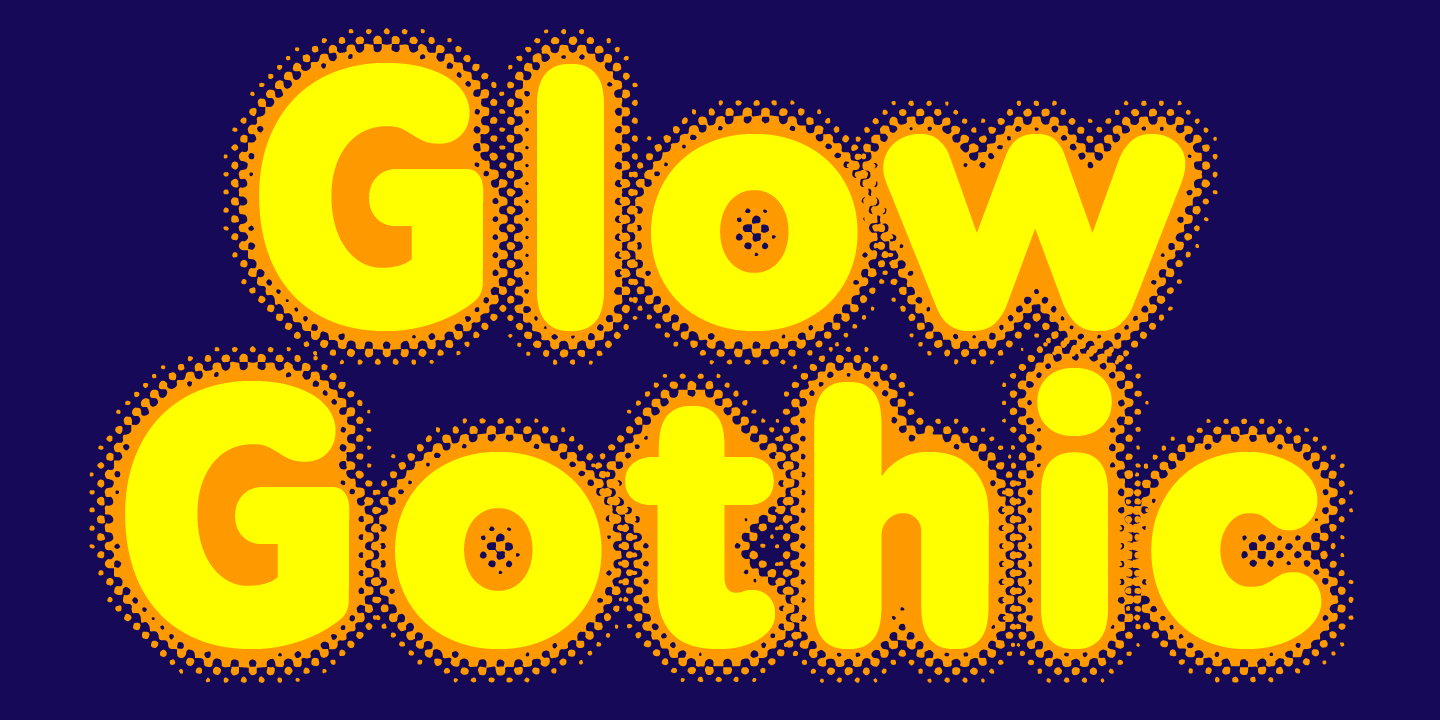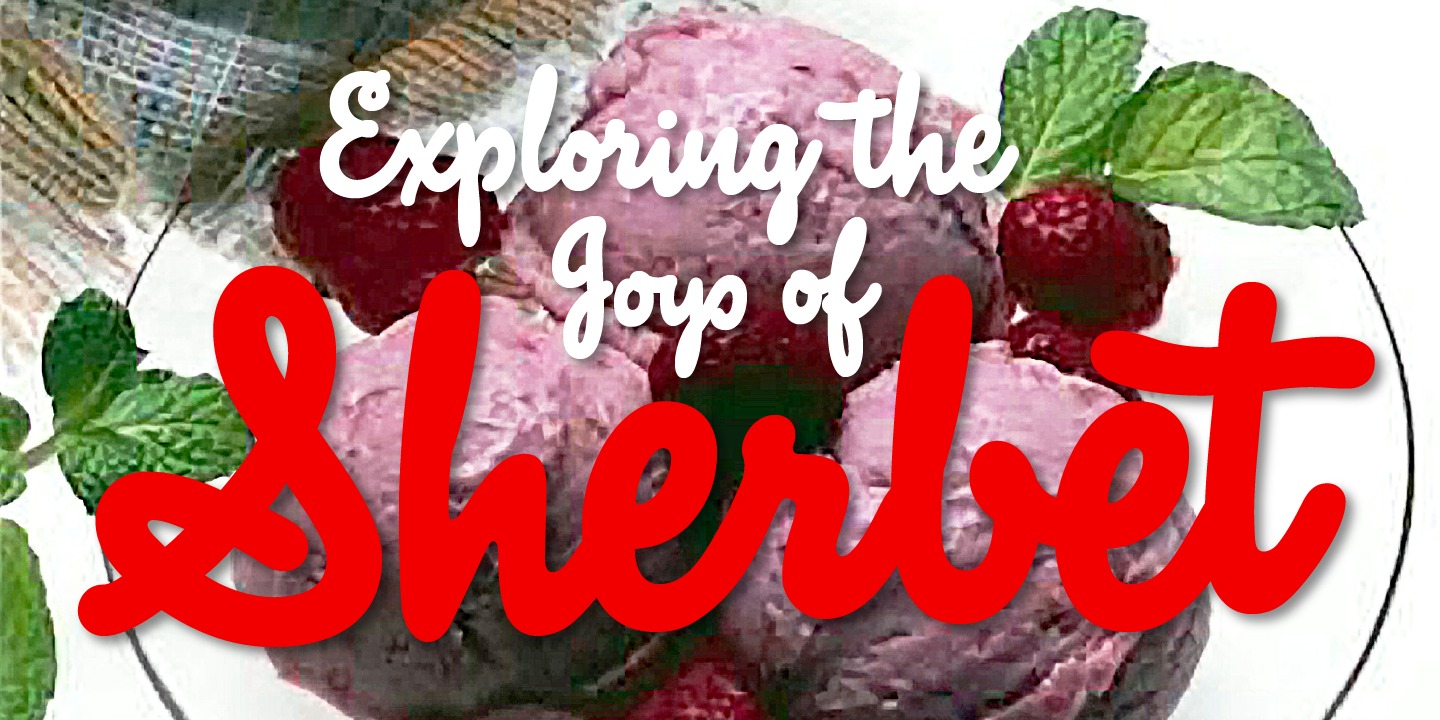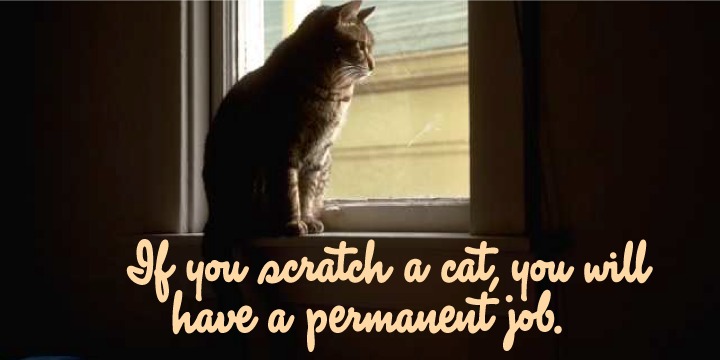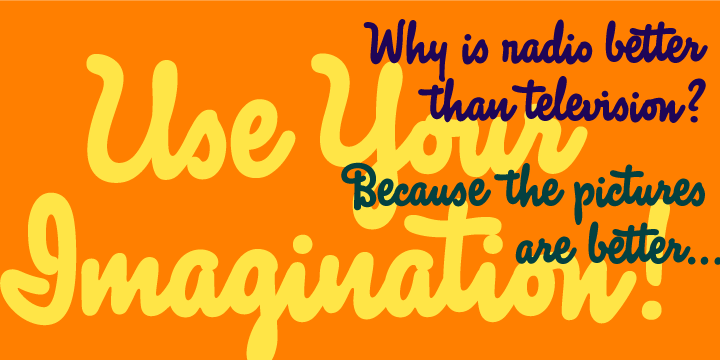
Bomparte’s Fonts, is a modest type foundry that was launched in 2006 by type designer John Bomparte, at the urging and encouragement of his friend and colleague Bob Alonso (BA Graphics).
John’s love and passion for letters began while in art college, and in the middle of studies in typography. His eyes were suddenly awakened to the rich diversity of various lettering styles. He would sometimes stare for hours on end, at the different typestyles shown in such dry-transfer lettering catalogs as Letraset® and Zipatone®. To John, this was “eye candy”!
It wasn’t long after that he discovered he’d been blessed with the ability to remember and identify the many typefaces to be found everywhere, from supermarket aisles to bookstore shelves.
Later on, John’s experience in type design blossomed at the legendary Photo-Lettering, Inc. where he was assistant to renowned type designer, Ed Benguiat. Working in such an environment also offered him the unique opportunity to be surrounded by such other great type designers as Tony Stan, Vic Caruso, Vincent Pacella.
However, with the emergence of the new computer technologies, the once photogenic letter inevitably had to go digital. So John embraced this new reality, as much of what used to be done laboriously by hand, could now be done in a fraction of the time.
Bomparte’s Fonts endeavors continually to offer an eclectic array of high-quality fonts. These range from experimental to retro-inspired. Most are original designs, while a few are updated revivals.
In addition to producing fonts for his own type foundry, John Bomparte also digitizes the type designs of Harry Warren (Breauhare).